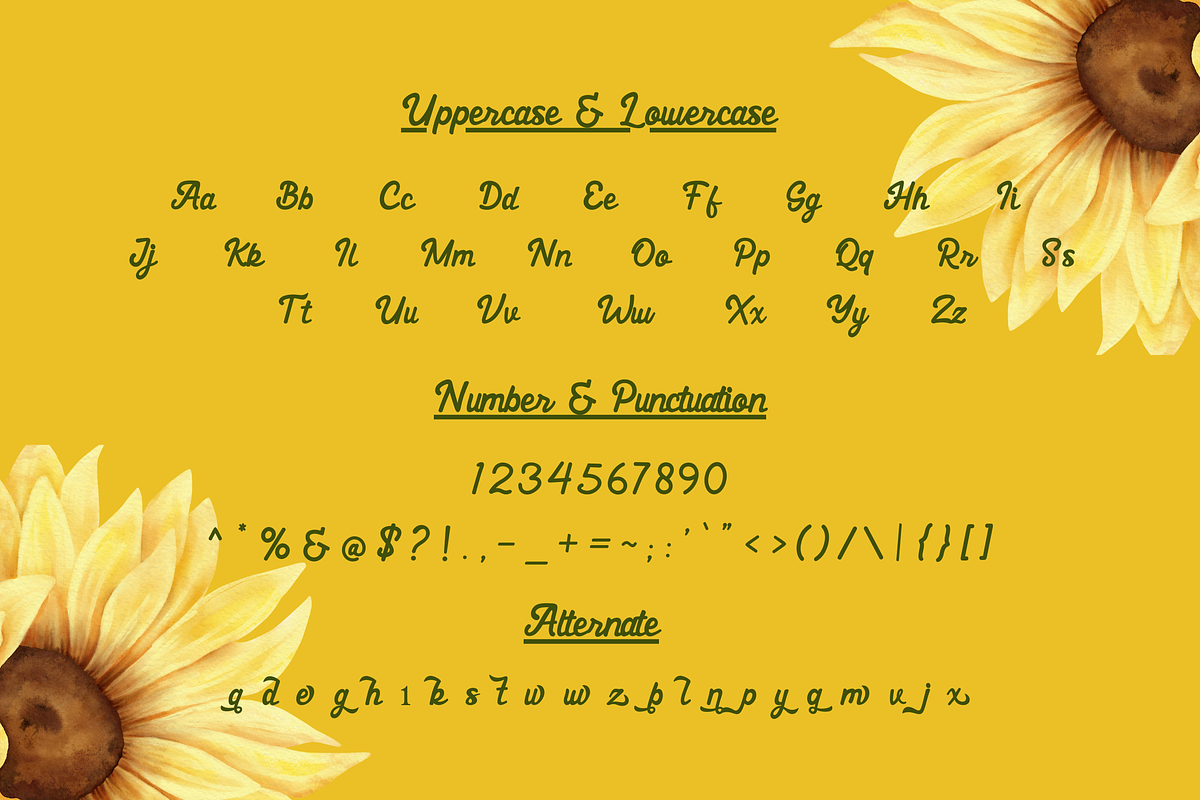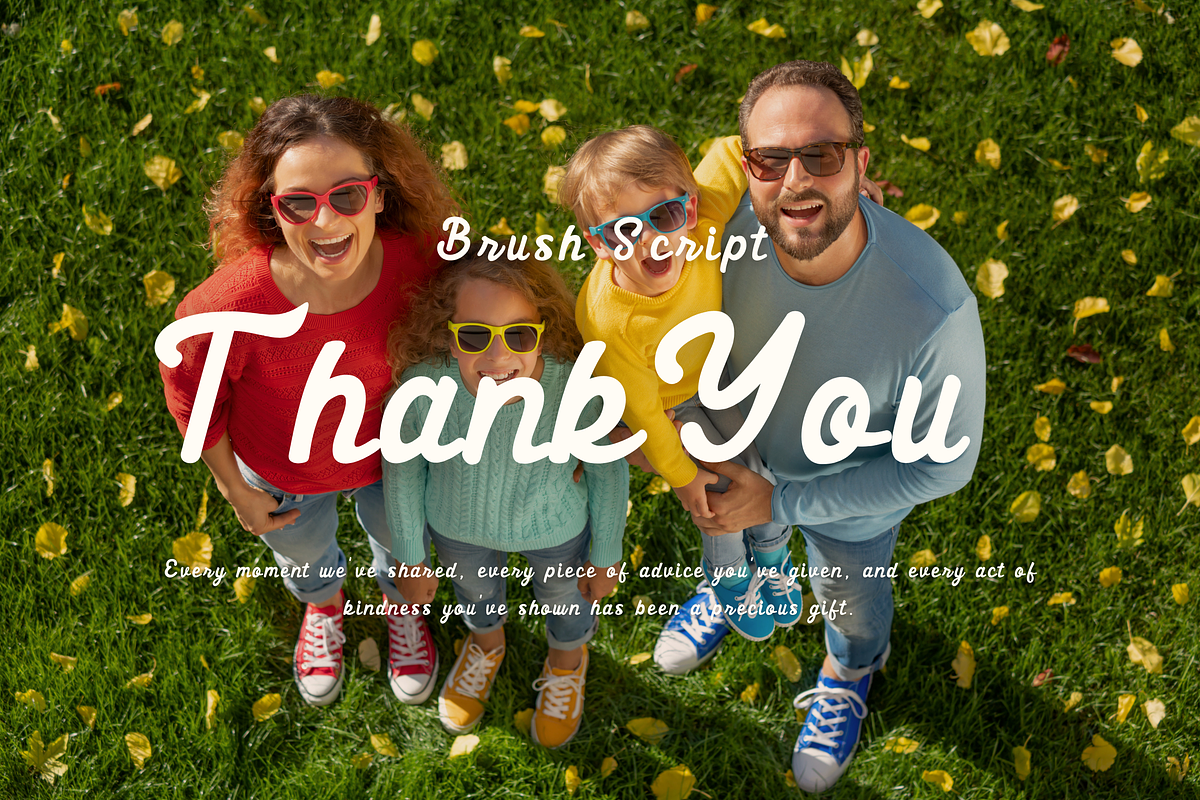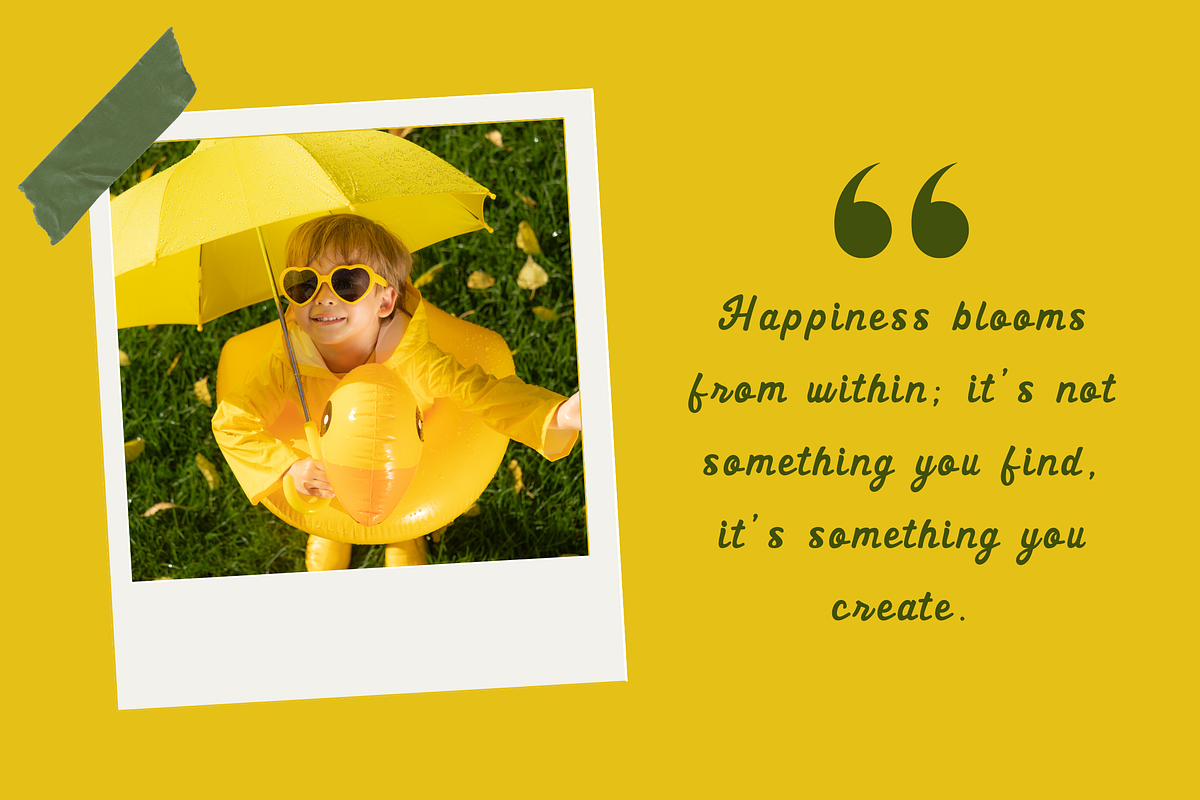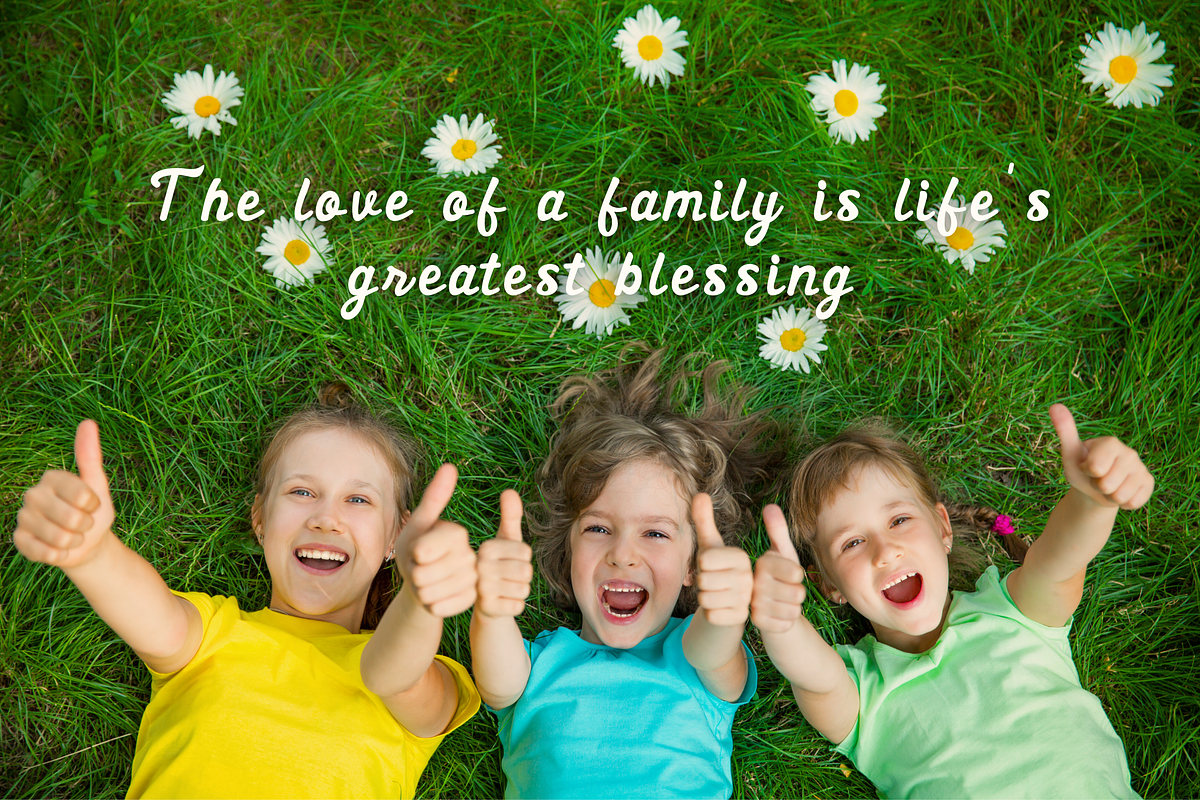
Tasikfam | Brush Script Font
Tasikfam is a brush script font that adds a playful twist to any design. With its whimsical letterforms and unique charm, it's perfect for eye-catching headlines, vibrant posters, and playful branding projects. Infuse your creations with joy and personality with Tasikfam!